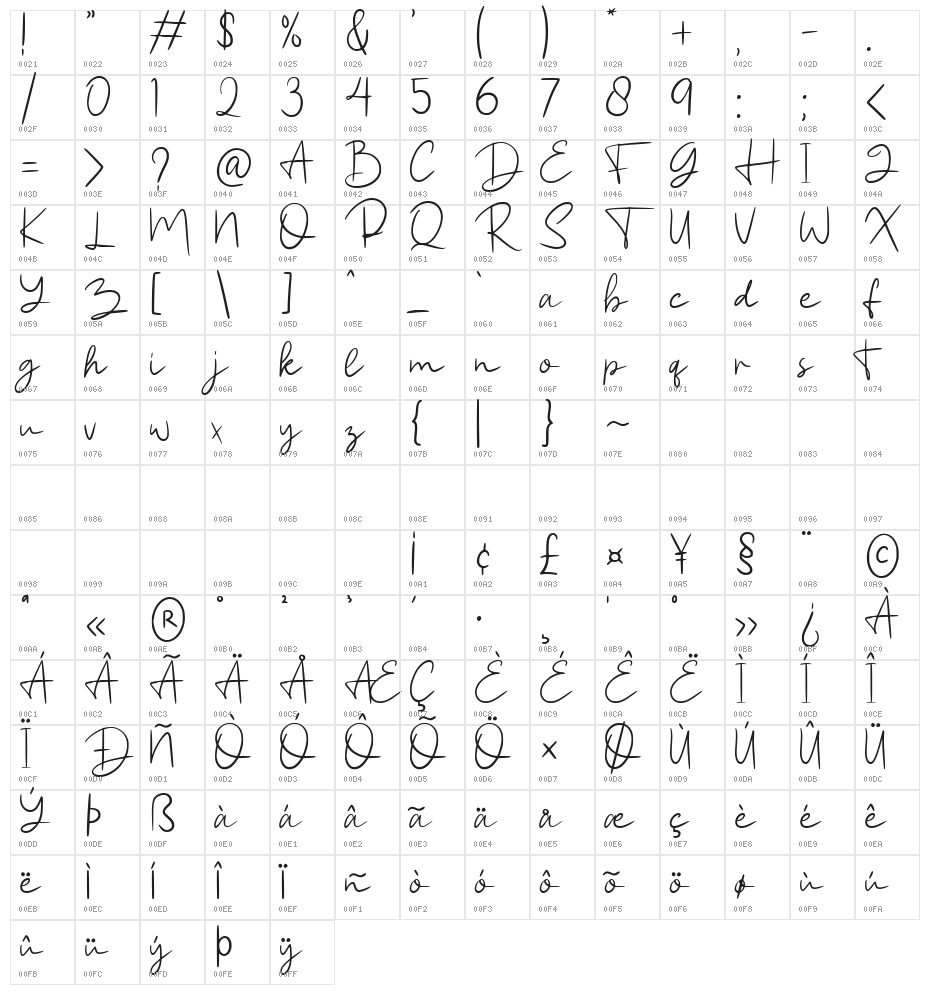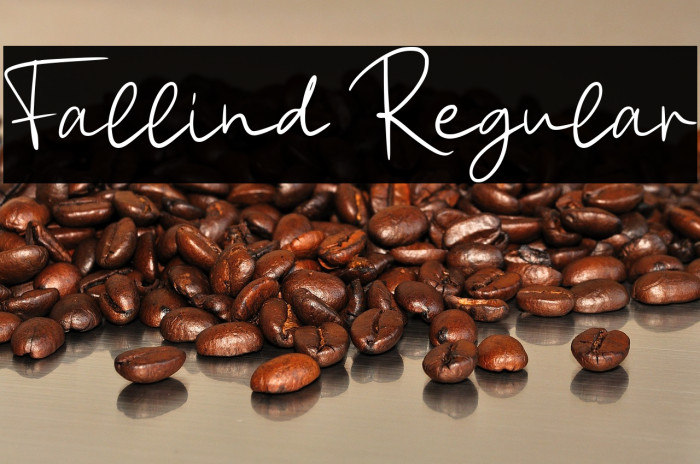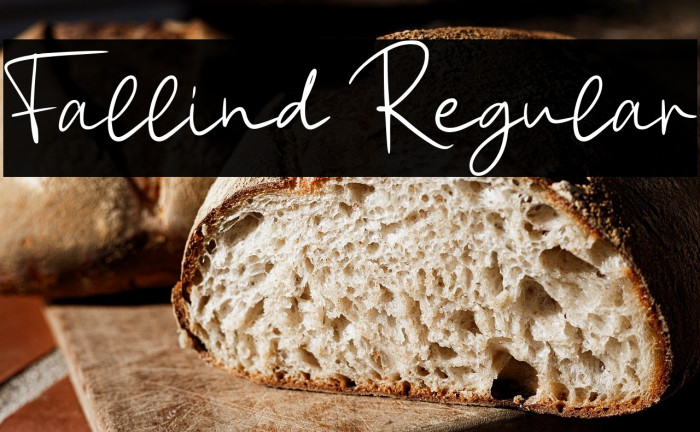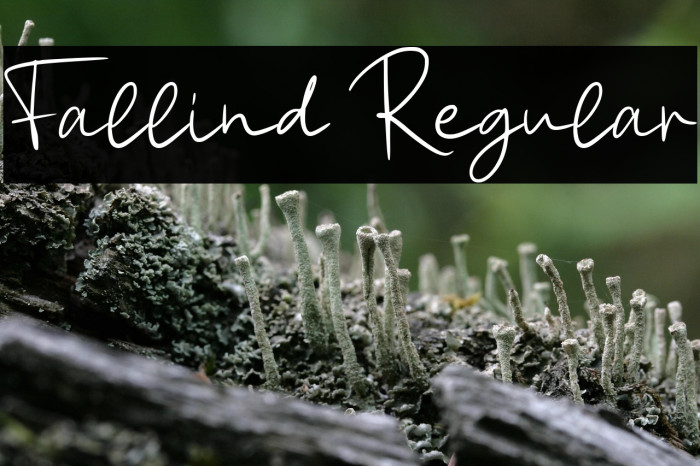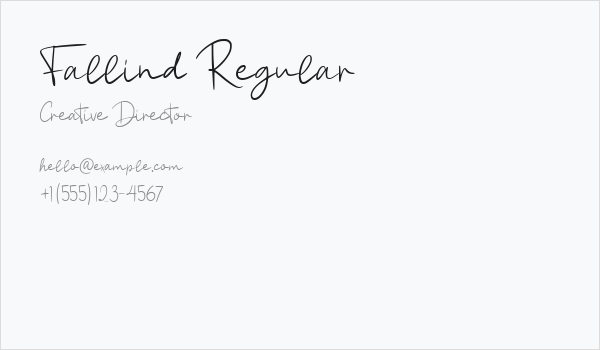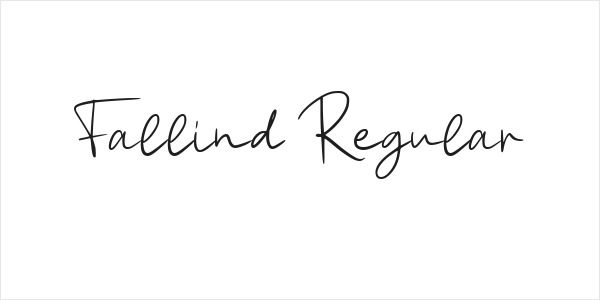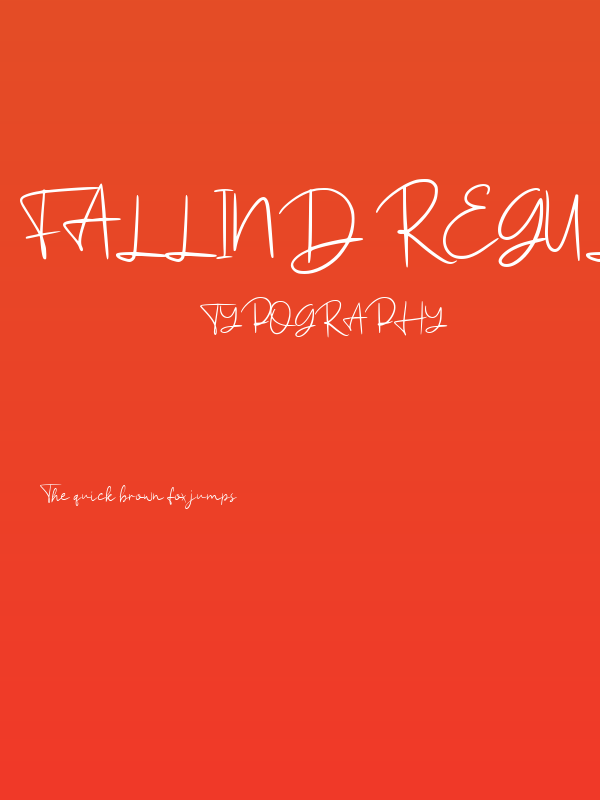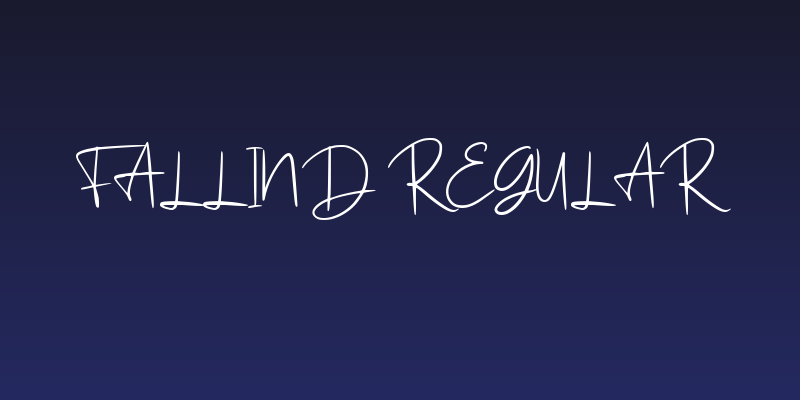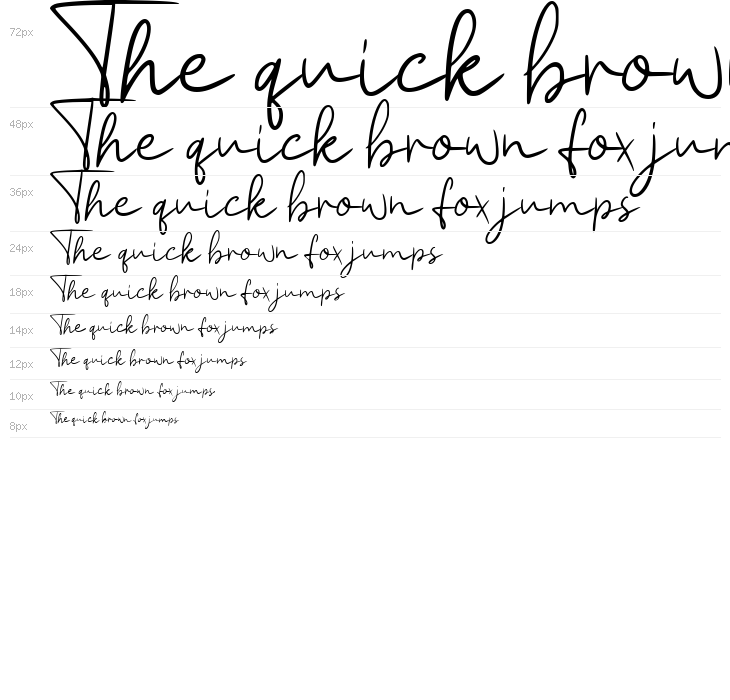
Fallind Regular Font
Fallind Regular Description
This font features a lively and expressive handwritten style, characterized by its fluid and dynamic strokes. The uppercase letters exhibit a playful yet elegant flair, with each character maintaining a consistent flow that suggests a sense of movement. The lowercase letters continue this theme, offering a more casual and approachable feel. The numerals are distinct and maintain the same energetic style, making them easily readable. Special characters are creatively integrated, adding to the font's overall charm. This font's unique personality makes it suitable for projects that require a personal touch or a creative edge.
| Use Case | Logos, Headlines, Creative projects |
| Proposed Projects | Ideal for greeting cards, invitations, personal branding, and creative projects. |